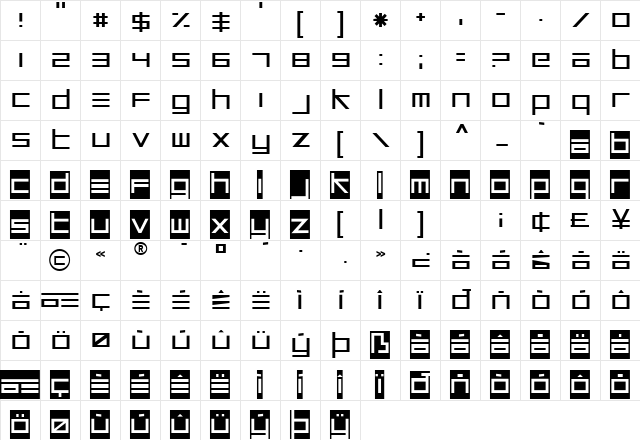
Unsteady Oversteer Regular Free Font
Unsteady Oversteer Regular
Unsteady Oversteer Family
Design Context for Unsteady Oversteer
Unsteady Oversteer is a composed and adaptable typeface that performs quietly and consistently across a wide range of design contexts.